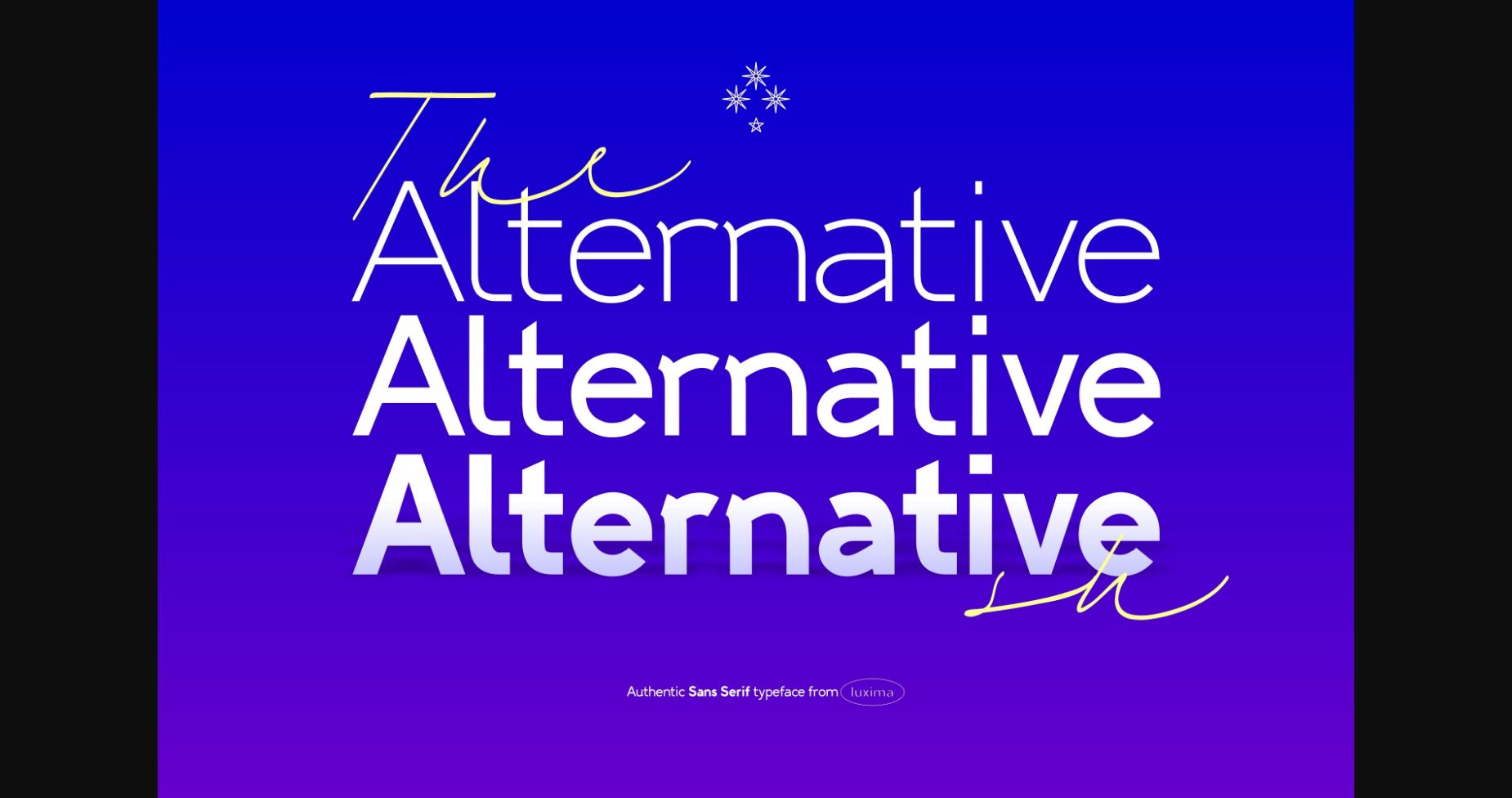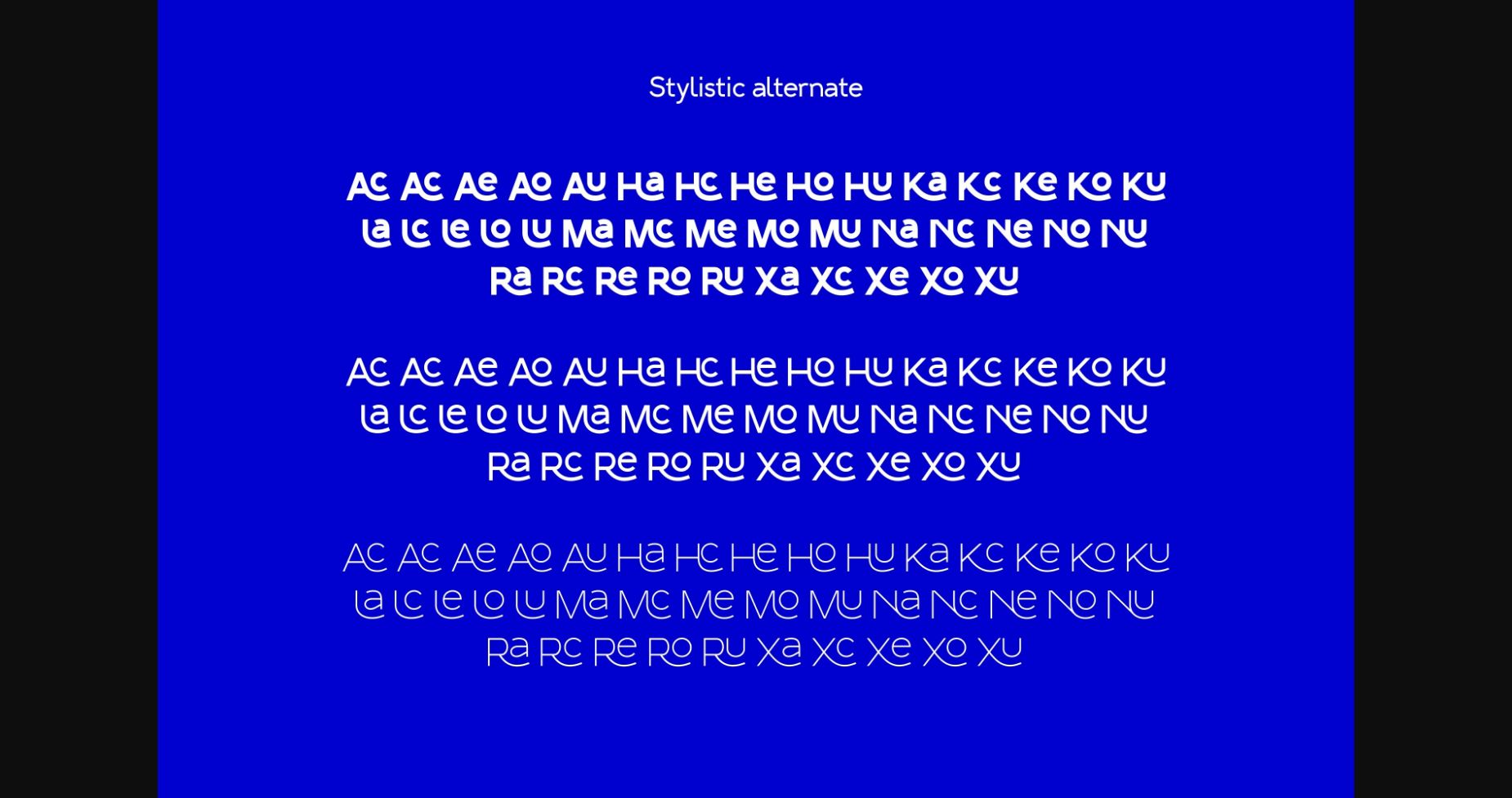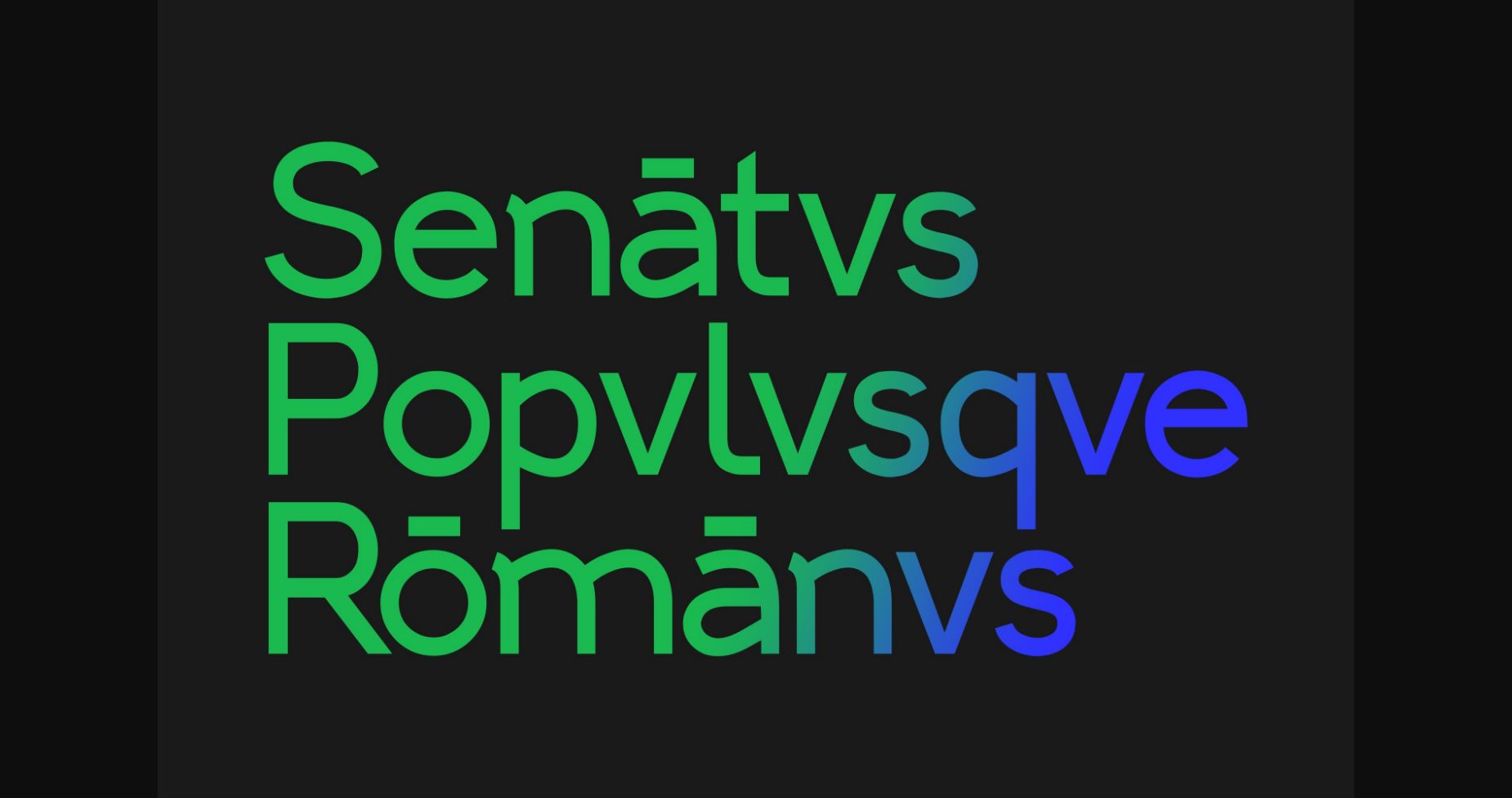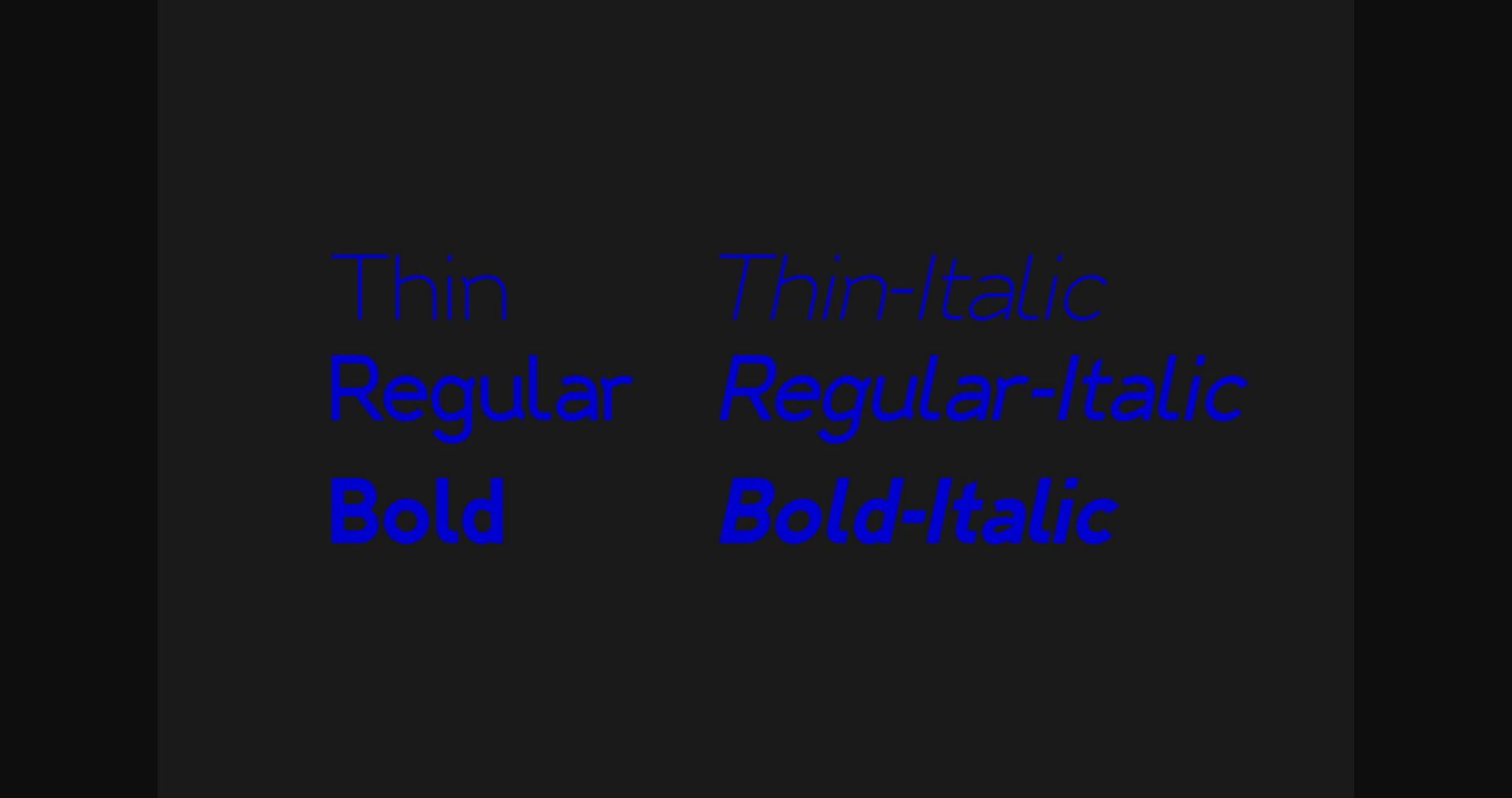
About Alternative SH Font
Alternative SH is a cool, modern and casual sans serif font. It is suitable for logotype, headline font, in corporate identity, brand identity, apparel industry, poster, music, movie, game, magazine, book, comic, cartoon, YouTube, Instagram, website, or any of your creative design projects.